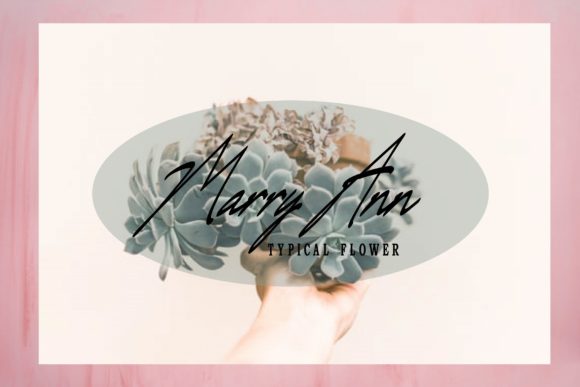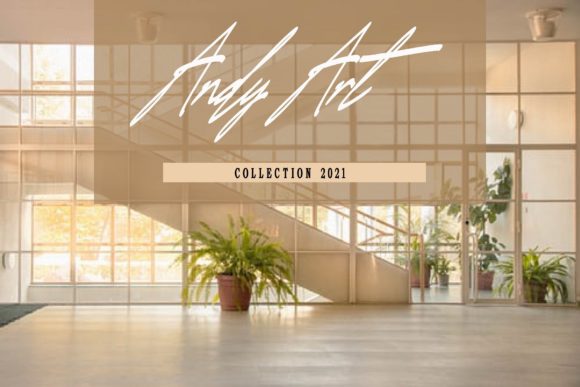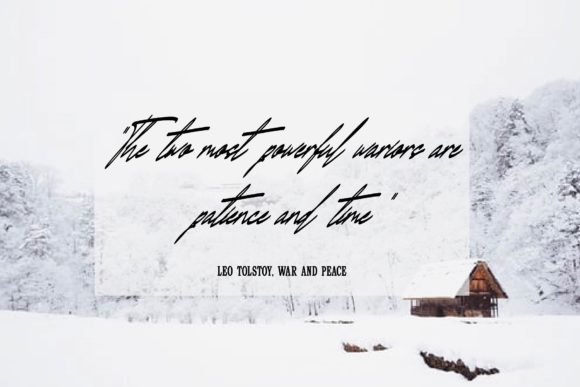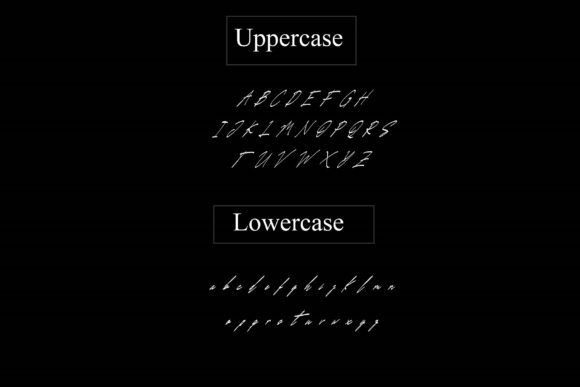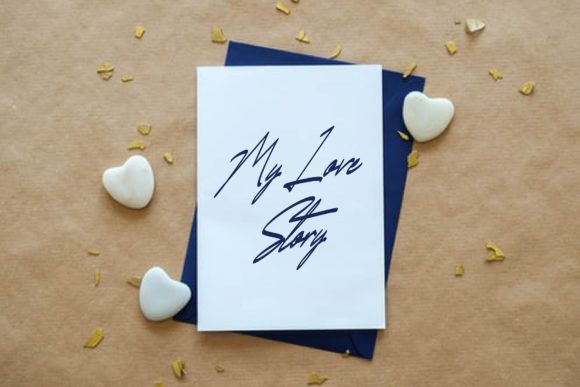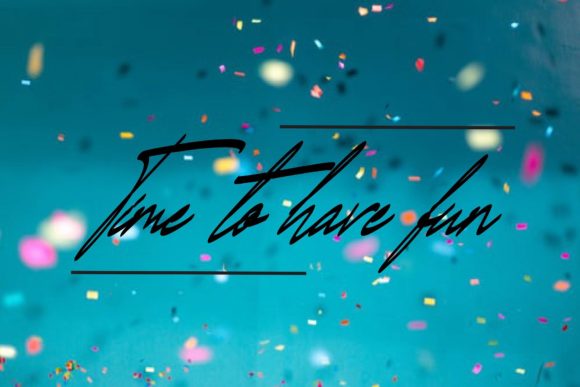
Introducing Datfunk Font: The Whimsical and Genuine Handwritten Font to Elevate Your Designs
In the world of typography, a well-crafted font can make all the difference in elevating your design to new heights. For designers and crafters looking for a unique and eye-catching font, Datfunk Font is an excellent choice. This whimsical and genuine handwritten font is expertly designed to add a touch of personality to your creations, making them stand out from the crowd.
What Makes Datfunk Font Special?
Datfunk Font is a beautifully designed font that boasts a distinctive, handcrafted feel. Its whimsical nature makes it perfect for designs that require a playful and creative touch. Whether you’re working on a branding project, a craft design, or a digital product, Datfunk Font is sure to add a dash of personality to your work.
One of the standout features of Datfunk Font is its versatility. This font is suitable for a wide range of design applications, from:
- Craft designs and DIY projects
- Digital products and e-commerce
- Packaging and labeling
Why Choose Datfunk Font?
So, what sets Datfunk Font apart from other fonts on the market? Here are just a few reasons why designers and crafters love this font:
- Unique and eye-catching: Datfunk Font has a distinctive, handcrafted feel that will make your designs stand out from the crowd.
- Whimsical and playful: This font is perfect for designs that require a touch of personality and whimsy.
- Versatile: Datfunk Font is suitable for a wide range of design applications, from branding to digital products.
- Easy to read: Despite its playful nature, Datfunk Font is easy to read and understand, making it perfect for body text and headings.
How to Use Datfunk Font in Your Designs
Using Datfunk Font in your designs is easy. Here are a few tips to get you started:
- Pair it with other fonts: Datfunk Font looks great when paired with other fonts, such as sans-serif fonts for a modern contrast.
- Experiment with colors: This font looks great in a range of colors, from bold and bright to pastel and soft.
- Use it for headings and titles: Datfunk Font is perfect for headings and titles, where its playful nature can really shine.
Tips and Tricks for Working with Datfunk Font
Here are a few tips and tricks to help you get the most out of Datfunk Font:
- Adjust the size: Experiment with different font sizes to find the perfect balance for your design.
- Play with spacing: Adjusting the spacing between letters and words can help to create a more dynamic look.
- Add effects: Consider adding effects, such as shadows or textures, to give your text an extra boost.
In conclusion, Datfunk Font is a unique and versatile font that is perfect for designers and crafters looking to add a touch of personality to their creations. With its whimsical and genuine handwritten feel, this font is sure to elevate your designs to new heights. Whether you’re working on a branding project, a craft design, or a digital product, Datfunk Font is an excellent choice.